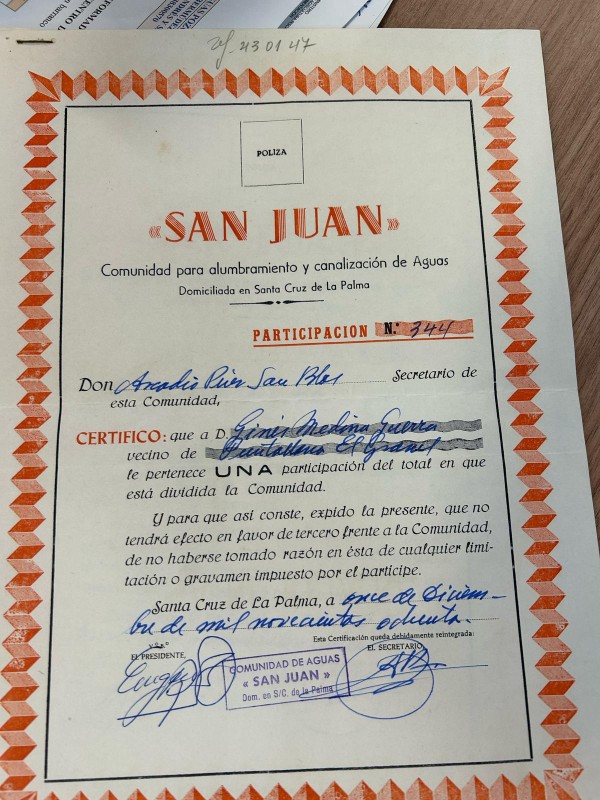
This is Afrodita.
Where is this sample from? I might want to add it to Fonts In Use.
It is a water stock from Santa Cruz de La Palma, it was very common font found in documents from the 60s and 70s there. A friend of mine was very curious about it.
Interesting, thank you! I see at least two more rare typefaces: Electra (also by Winkow) and Escritura Selecta. For a post, I would need a bigger image. If you still have the certificate, could you do a scan of it; or alternatively a straight photo of the full page, and send it to info (at) fontsinuse.com? If that’s asked too much, never mind – no worries.